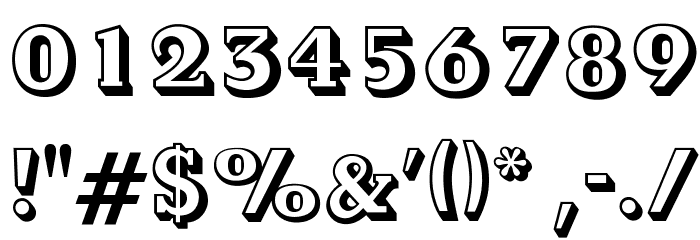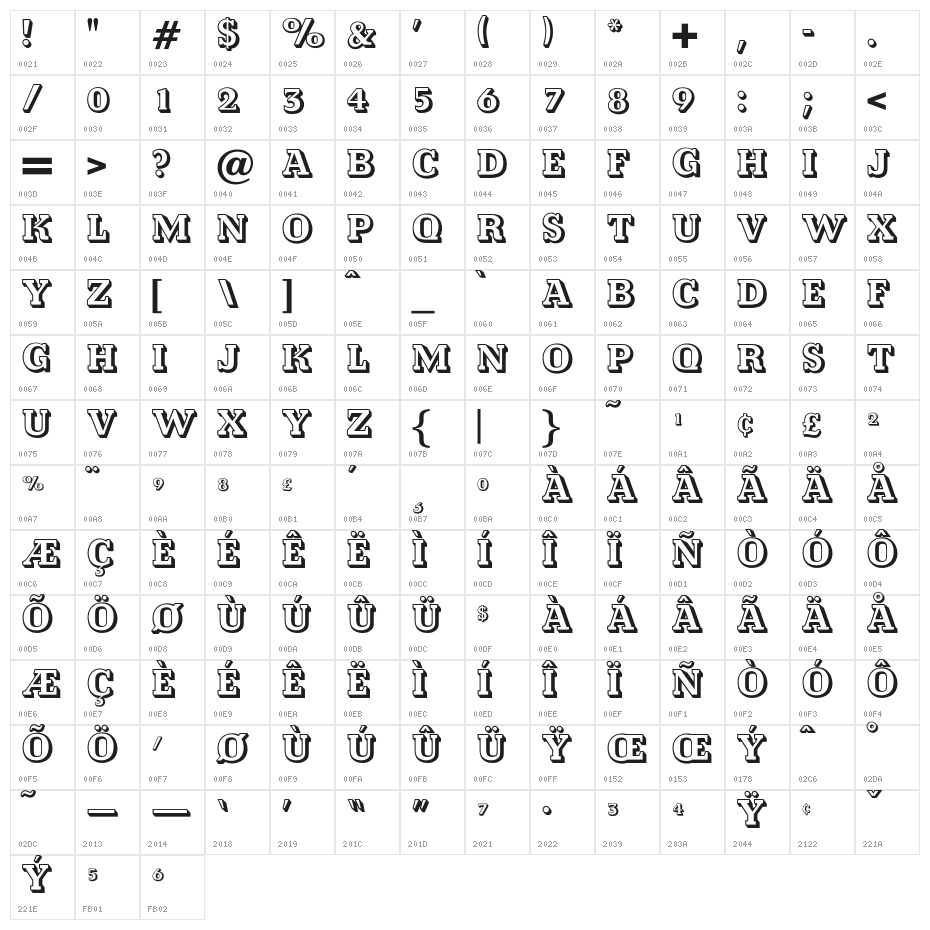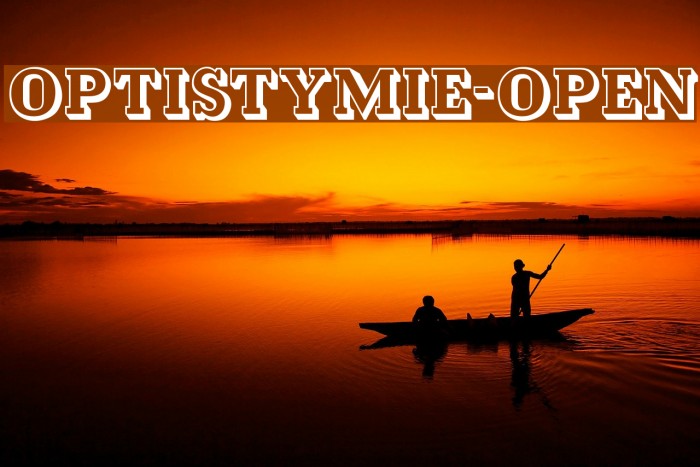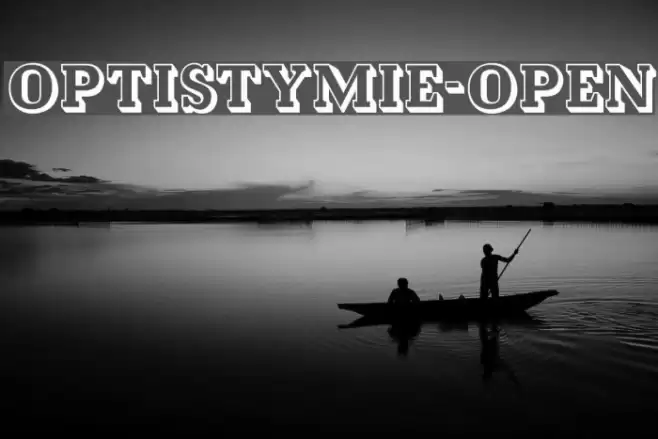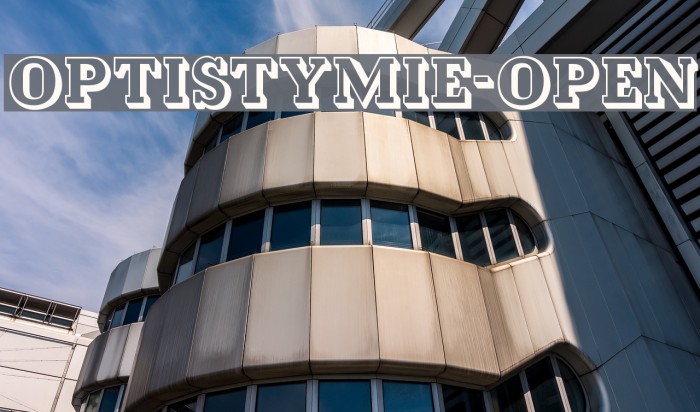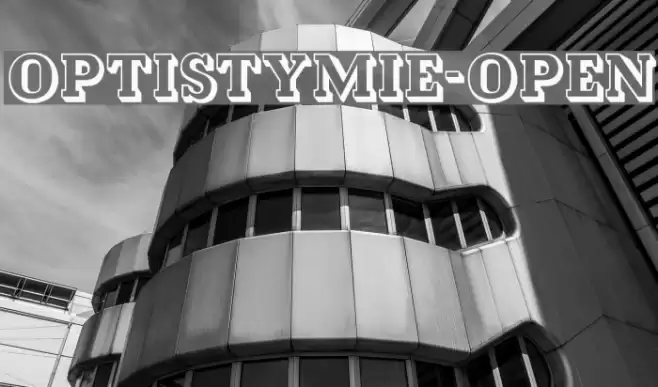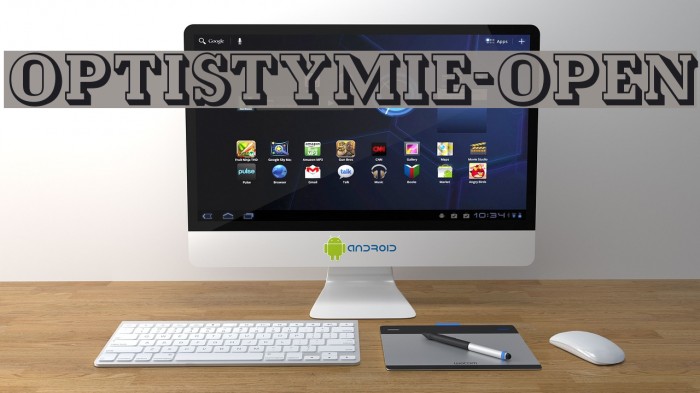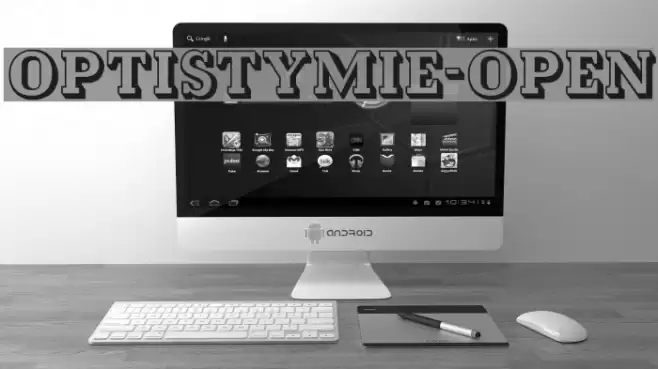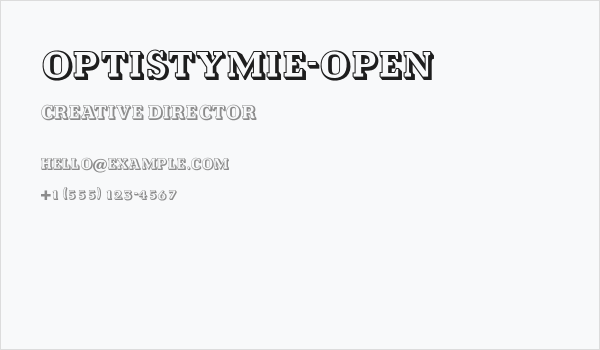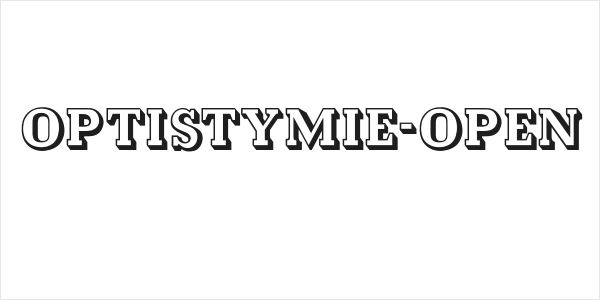
OPTIStymie-Open Font
OPTIStymie-Open Description
This font features a bold and striking design with a strong presence. Each character is outlined, creating a shadow effect that adds depth and dimension. The uppercase letters are particularly prominent, with thick strokes and a slightly condensed form. The numerals are equally bold, maintaining the same outlined style. Special characters are included, matching the bold aesthetic. The overall look is both classic and modern, making it versatile for various design needs.
| Overall Style | Classic, Modern |
| Proposed Projects | Ideal for headlines, posters, logos, and any design requiring a strong visual impact. |